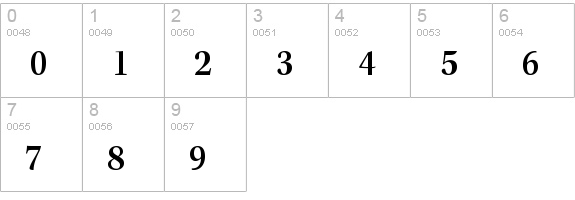
Kepler Std Semibold Semicondensed Font Details
Kepler Std Semibold Semicondensed is a sub-bold, structured variant in the Kepler typeface family \xE2\x80\x94 well suited to sub-headlines and emphasised passages.
Kepler Std Semibold Semicondensed font is a stunning display of elegance and versatility. With its bold and semi-condensed letterforms, this font exudes a sense of strength and professionalism that is perfect for a wide range of design projects. The carefully crafted curves and precise spacing of Kepler Std Semibold Semicondensed make it a truly standout typeface. Whether you're designing logos, headlines, or body text, this font will effortlessly catch the eye and captivate the reader. One of the best features of Kepler Std Semibold Semicondensed is that it is freely available to download at FontsMarket.com. This means that you can easily enhance your designs with this incredible font without any cost. This font is a true gem that combines beauty and accessibility in one package. The versatility of Kepler Std Semibold Semicondensed extends beyond just its aesthetic appeal. With its wide character set, this font supports multiple languages, making it ideal for global projects. It also offers a range of stylistic alternates, ligatures, and other OpenType features, allowing you to truly customize and personalize your designs. Whether you're a professional designer or a beginner, Kepler Std Semibold Semicondensed is a font that will elevate your work to the next level. Its timeless elegance and modern flair make it a must-have in any designer's toolkit. So why wait? Download Kepler Std Semibold Semicondensed for free at FontsMarket.com and unlock a world of design possibilities.